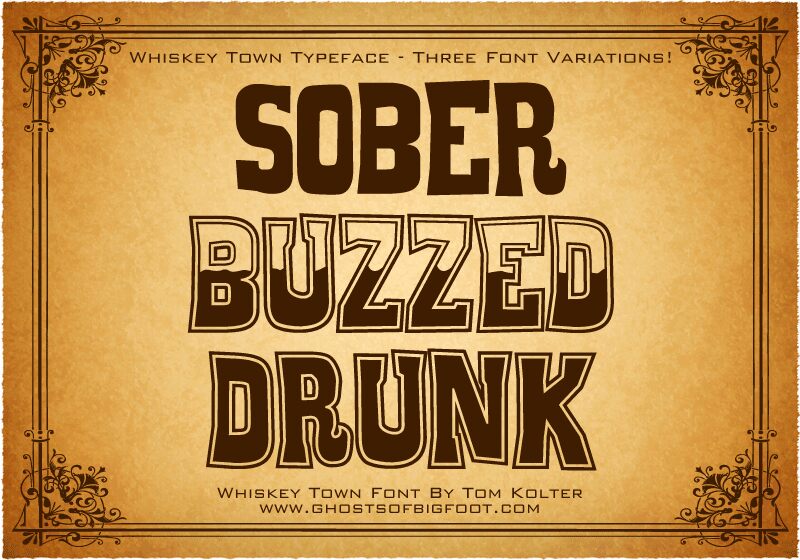
Whiskey Town Drunk by Tom Kolter is a free Western comic display font with the broad stance of hand-painted show lettering. Tall caps carry heavy interiors, slim inset highlights, and a loose double outline that gives every edge a lively wobble. The uneven contours keep it rowdy rather than formal.
Its saloon-poster flavor suits beverage packaging and music event graphics, with enough theatrical weight for entertainment posters as well. On merchandise and venue signage, the outlined construction can become part of a full frontier-themed brand identity alongside badges, stars, or illustrations.
The Whiskey Town typeface includes three fonts.